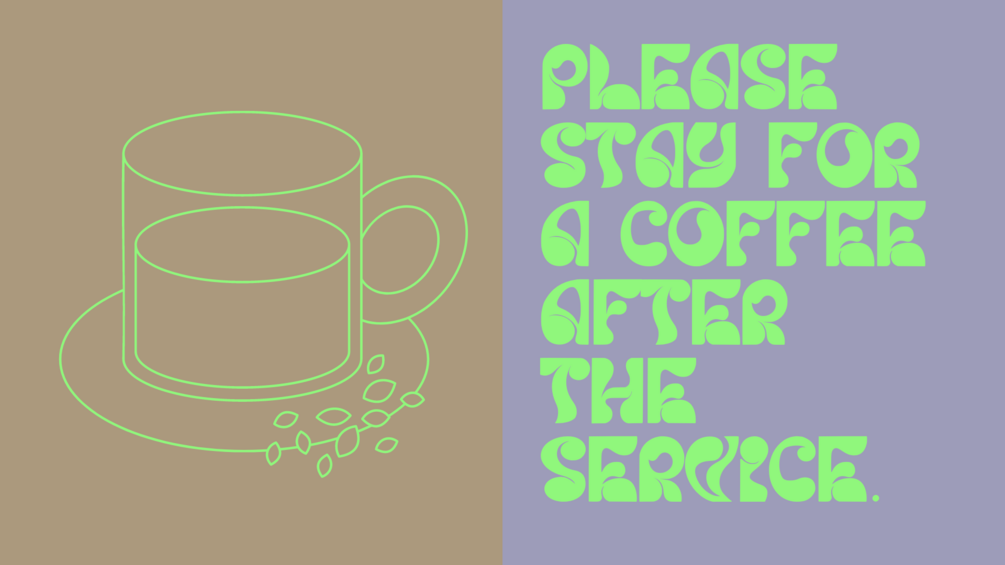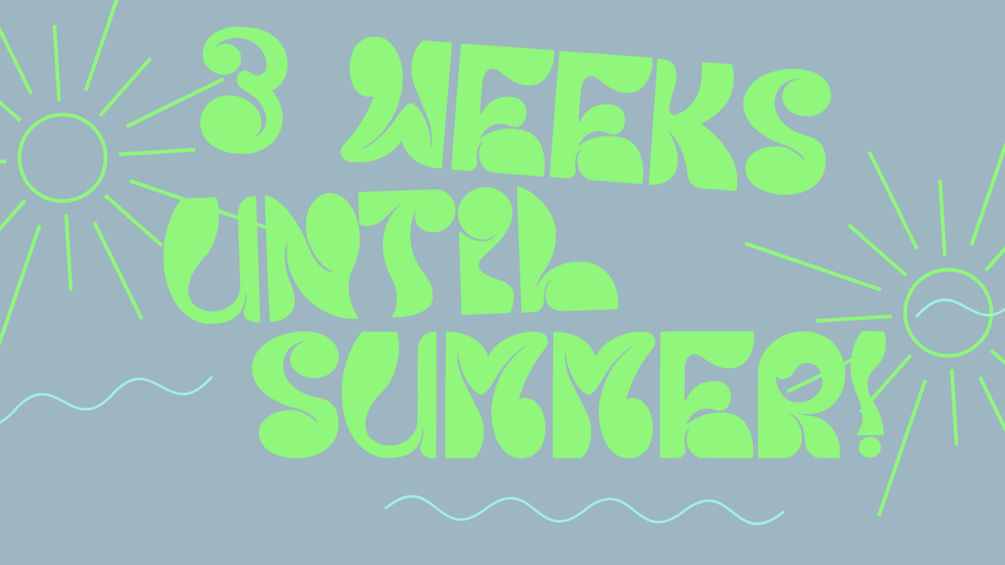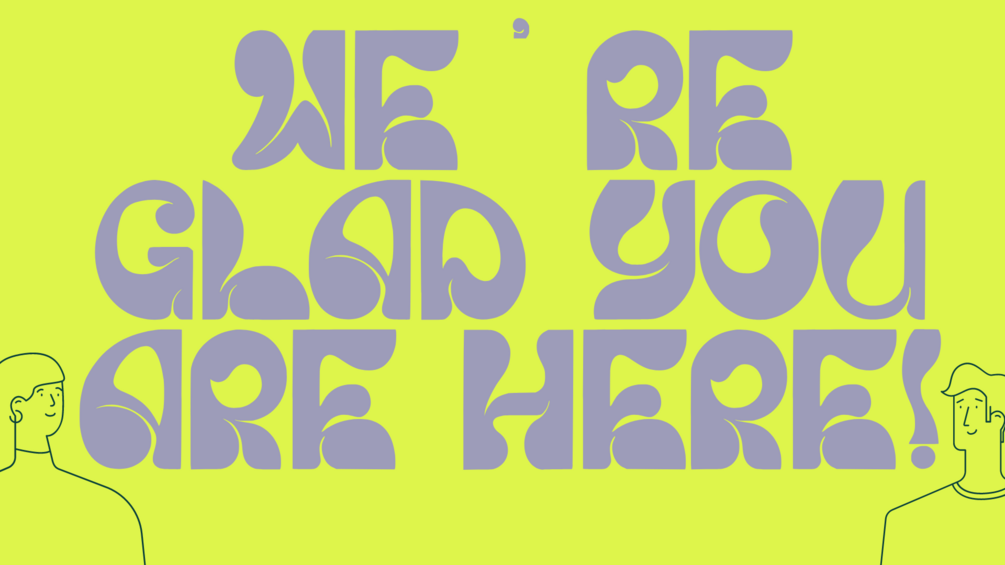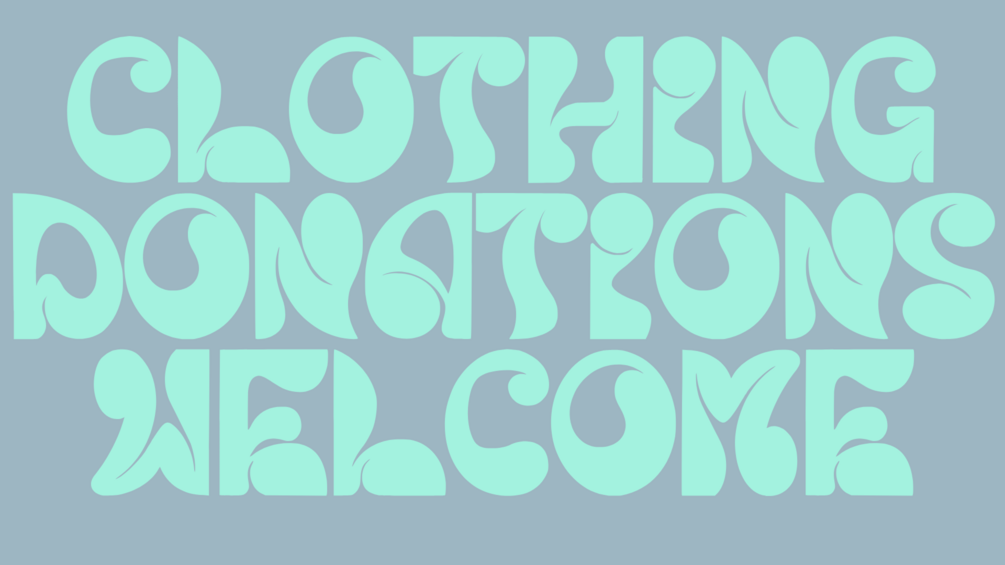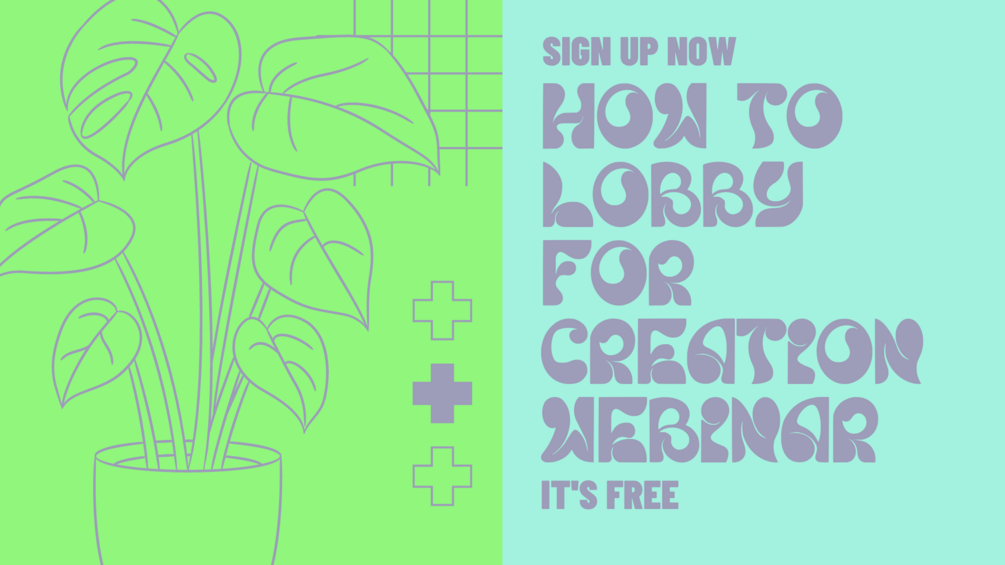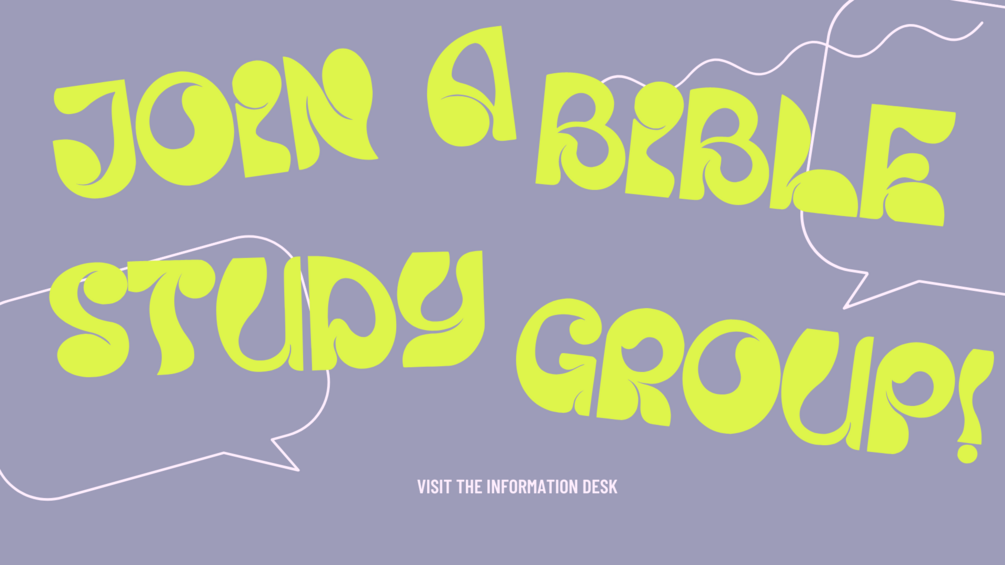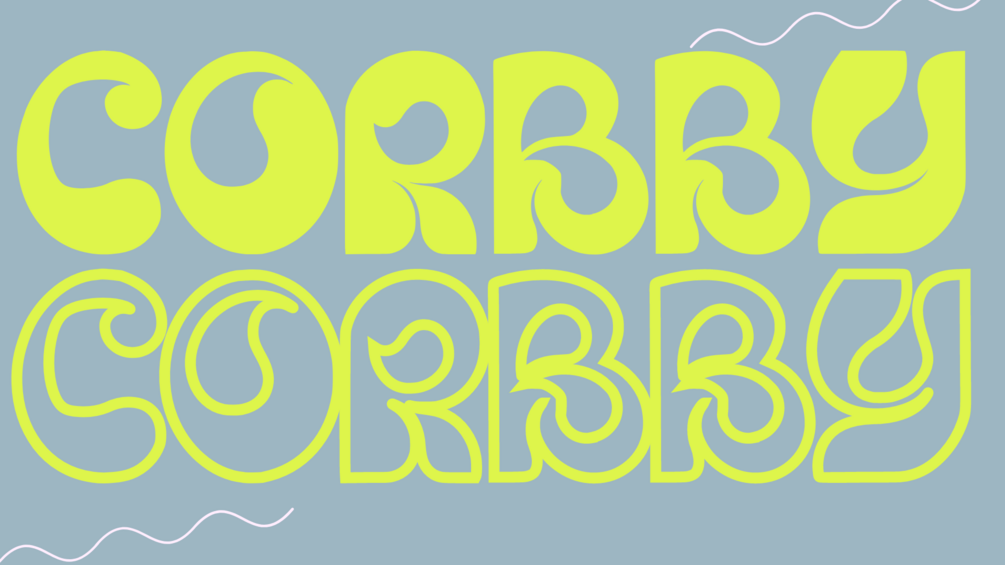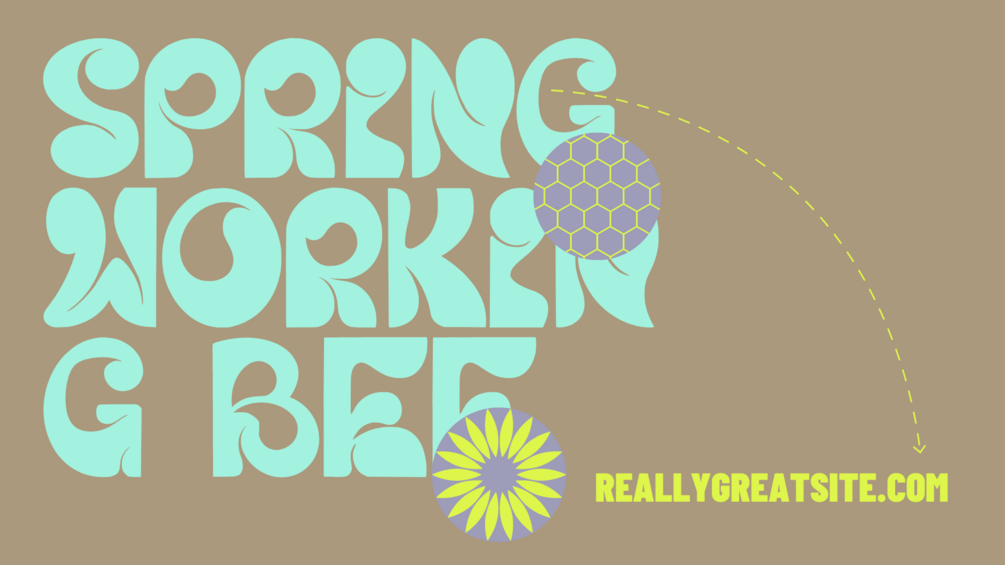
Corbby - Display Font
Corbby is a versatile, bold and unique serif font. Combination between high contrast and Brutalism style, Corbby has a unique style with stylistic, alternates, ligatures and supports multilingual languages.